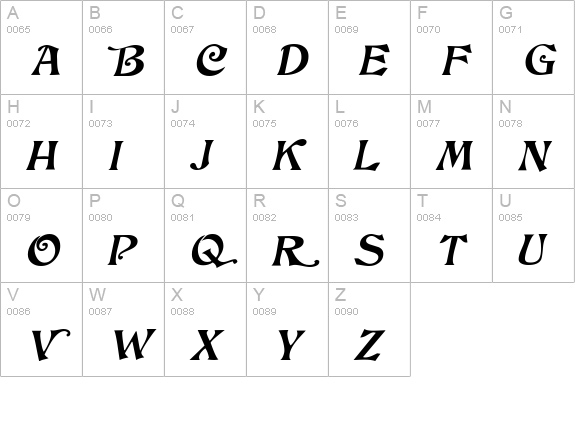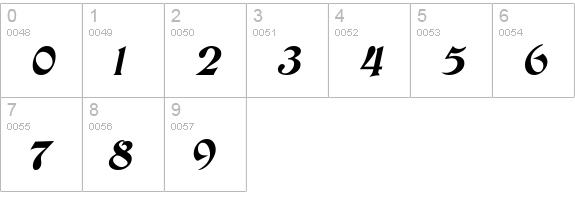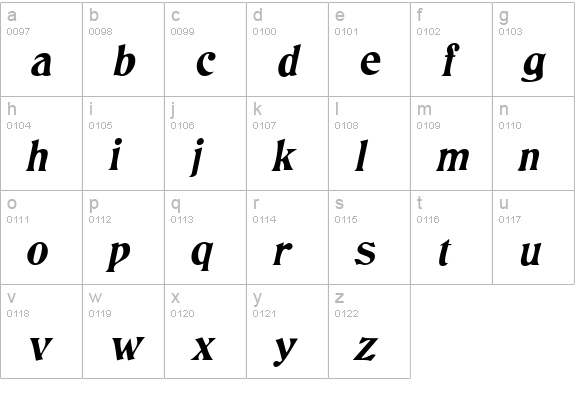
Tringle Italic Font Details
Tringle Italic is a distinctive, italic variant in the Tringle typeface family \xE2\x80\x94 well suited to design and typography projects.
Tringle Italic font is a modern and elegant typeface that exudes sophistication and style. Its sleek and slanted letterforms add a touch of uniqueness to any design project, making it perfect for logos, headlines, and branding materials. With its clean lines and delicate curves, Tringle Italic font strikes the perfect balance between professionalism and creativity. It captures attention effortlessly, leaving a lasting impression on the viewer. This font is not only visually pleasing but also incredibly versatile. It can be used for various purposes, from print materials to digital media, ensuring consistency across different platforms. Its legibility remains intact even at small sizes, making it an excellent choice for body text as well. What makes Tringle Italic font even more appealing is that it is available for free download at FontsMarket.com. This means that designers, enthusiasts, and anyone with a creative project can easily access this beautiful font without any financial burden. Whether you are a professional designer or a hobbyist, the accessibility of Tringle Italic font ensures that everyone can benefit from its stunning aesthetic. So, why wait? Elevate your designs with the captivating charm of Tringle Italic font. Download it for free at FontsMarket.com, and let its distinctive style bring your creative vision to life.